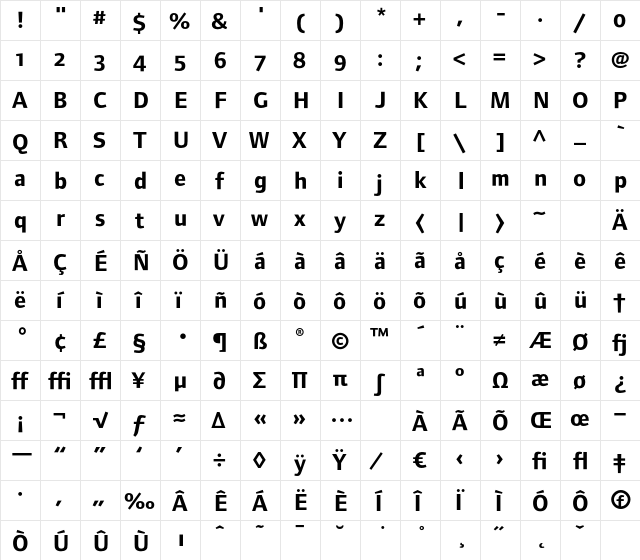
FoundryFormSans BoldOSF
Design Context for FoundryFormSans Typeface
FoundryFormSans takes a measured approach to typography — its balanced proportions and neutral character make it a reliable workhorse for both digital and print work. The heavy weight commands attention and anchors typographic hierarchies.
Pro Tip: Pair FoundryFormSans with a font of contrasting weight or personality to build a more expressive typographic hierarchy.